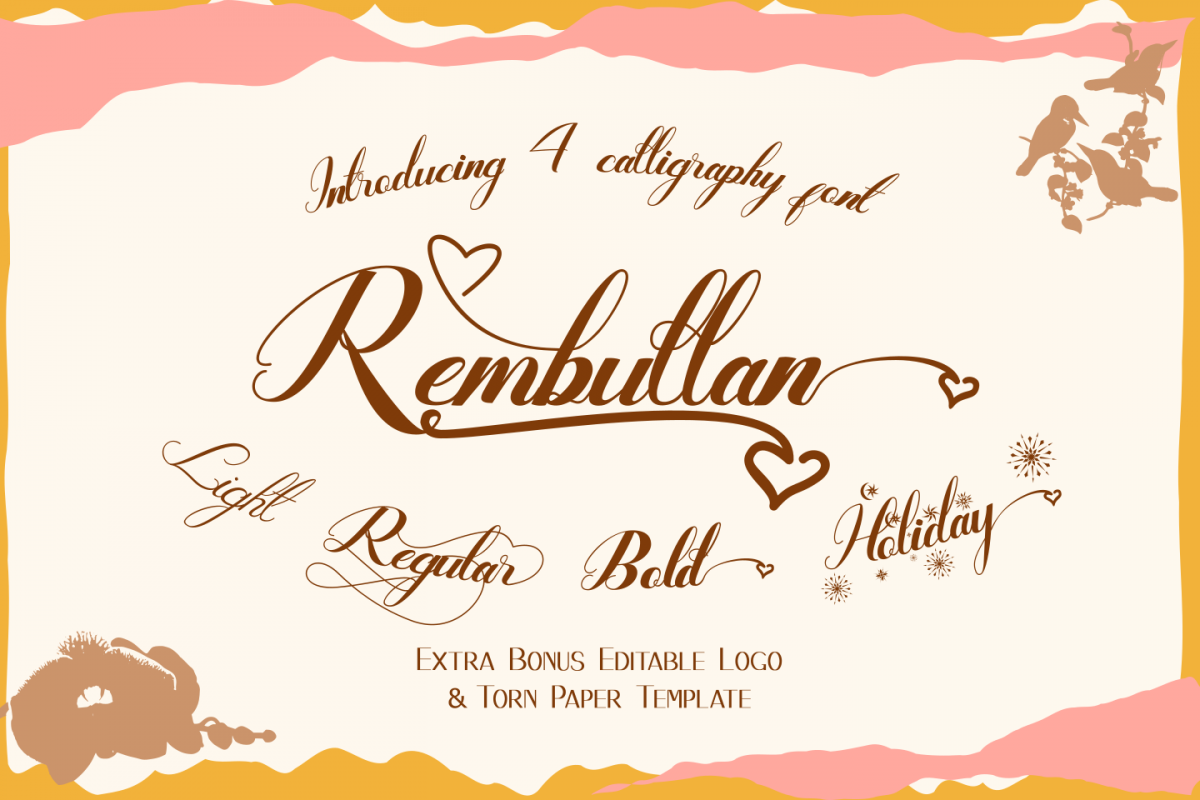
Rembullan Script Family Font
The Rembullan family font is a beautiful script calligraphy. it has so many alternative characters in every style. it will change your design to be prominent and attractive. In Holiday style you will find a unique glyph that matches with cheer and joyful design. Happiness is Rembullan. it is also has an editable 10 torn paper template as a bonus. The bonus link is here https://www.dropbox.com/s/44tp7gr49ace3ix/Rembullan%20bonus.zip?dl=0